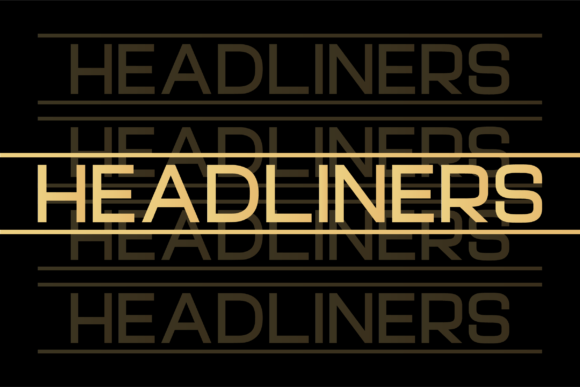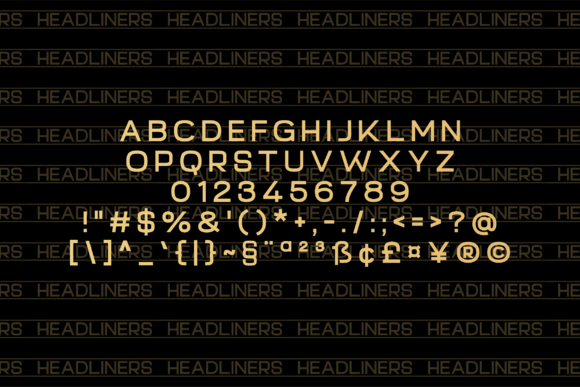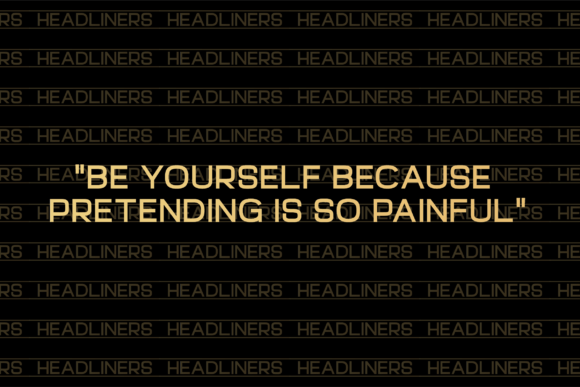
The Perfect Headline: Unlocking the Power of Headliners Font
Have you ever found yourself staring at a blank screen, trying to craft the perfect headline that captures the essence of your brand? You know the feeling – it’s a mix of creativity, frustration, and a dash of desperation. But what if I told you that there’s a font that can make all the difference? Introducing Headliners Font, the all-caps sans serif font that’s been making waves in the design world.
With its smooth and clean lines, and just the right amount of contrast, Headliners Font is the perfect solution for logos, branding, and web headings. Its versatility makes it a valuable asset for designers who want to create a lasting impression without sacrificing style. Whether you’re working on a personal project or a high-profile client, Headliners Font is the perfect tool to help you stand out from the crowd.
Key Features of Headliners Font
- Unique Characteristics: This font features a distinctive, modern design with clean lines and a bold, attention-grabbing style, making it ideal for headlines and titles.
Headliners Font Review
Overall, I think Headliners Font has some great qualities that make it a solid choice for certain design projects, but it’s not without its limitations. ✨ One thing I love is its modern and clean aesthetic, making it perfect for titles and headings in digital design. The font’s sans-serif style gives it a sleek and contemporary feel that’s hard to resist.
Another advantage is its wide range of weights and styles, which allows designers to create visually appealing typography hierarchies. The font is also highly legible, even at smaller sizes, making it suitable for a variety of applications, from print to digital media.
- Modern and clean aesthetic
- Wide range of weights and styles
- Highly legible
- Suitable for digital and print design
- May lack personality and character
- Not ideal for projects that require a lot of nuance and subtlety
- Some users may find it too generic
- ⚠️ Limited support for certain languages and scripts
Overall, I think Headliners Font is a reliable choice for designers who want a clean and modern sans-serif font. While it may not be the most exciting or innovative font, it gets the job done and can be a great addition to any design project.
Tips for Getting the Most Out of Headliners Font
Use Headliners Font for attention-grabbing headlines and titles.
Combine Headliners Font with other fonts to create a balanced and visually appealing design.
Headliners Font is ideal for:
– Newspaper and magazine headlines
– Social media posts and ads
– Marketing materials and brochures
– Presentations and slideshows